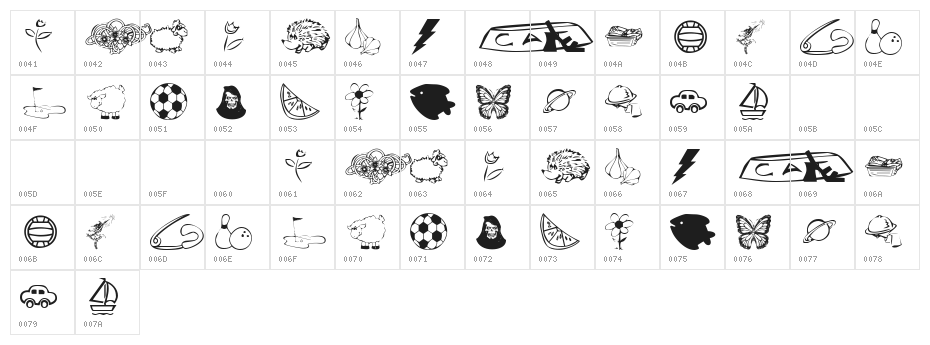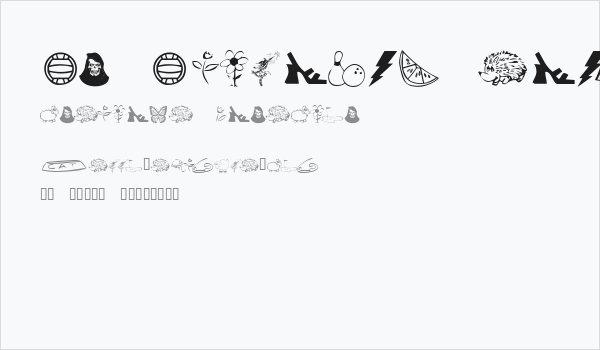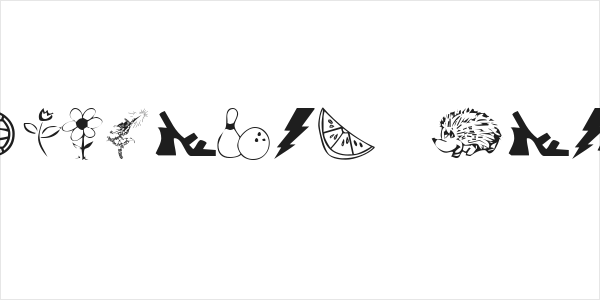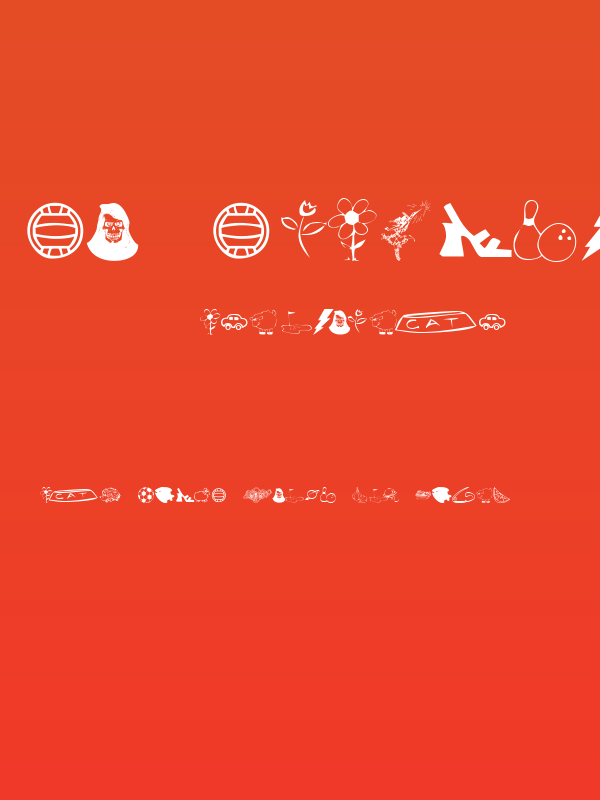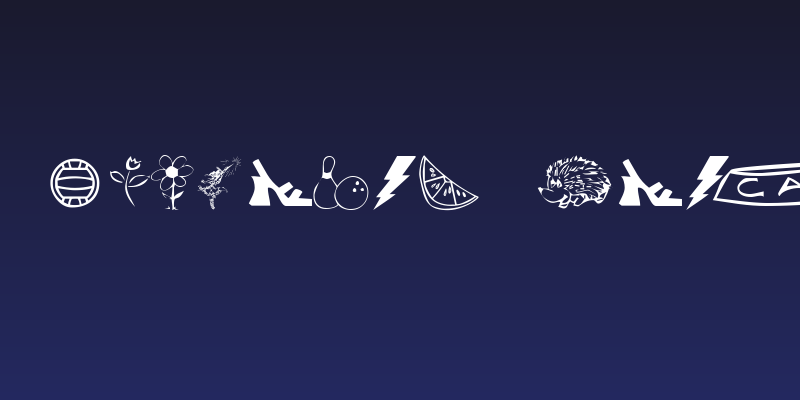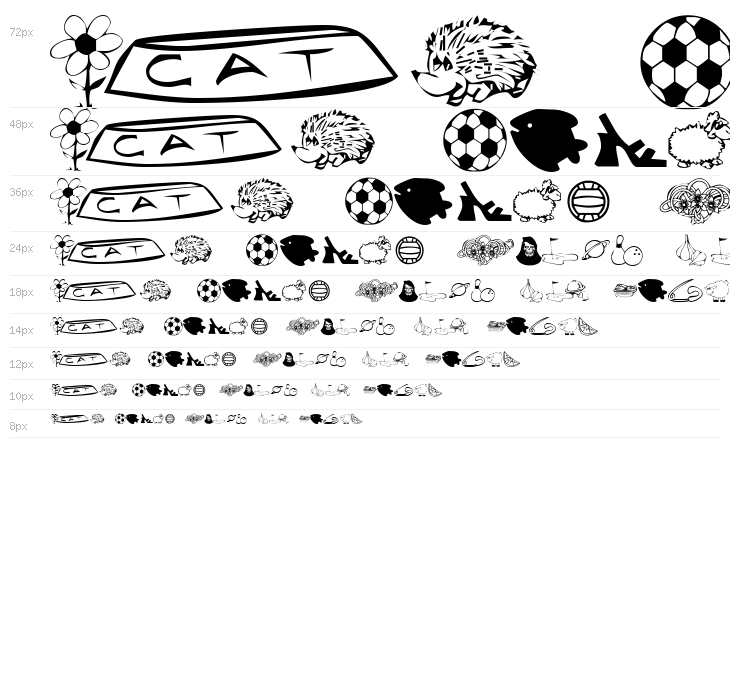
KR Katlings Eight Font
KR Katlings Eight Description
| Overall Style | Playful, Whimsical, Decorative |
| Use Case | Illustrative elements, Decorative accents, Themed graphics |
| Proposed Projects | ChildrenΓ’β¬β’s books, educational materials, scrapbooking, party invitations, playful branding, and creative crafts. |